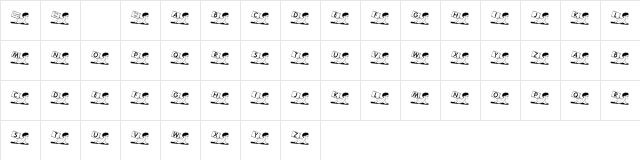
KR For Baby B Regular Font Preview
KR For Baby B Regular
Design Context for KR For Baby B Typeface
KR For Baby B is a composed and adaptable typeface that performs quietly and consistently across a wide range of design contexts.